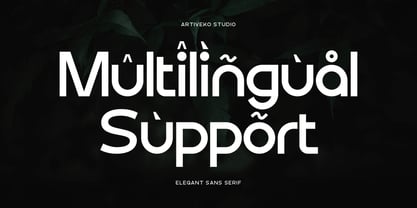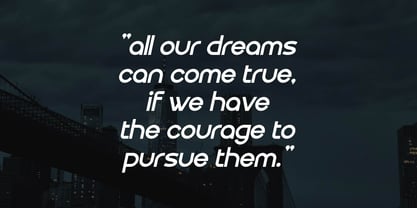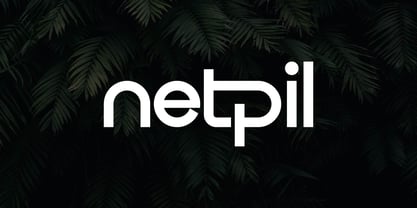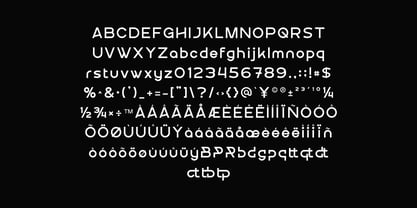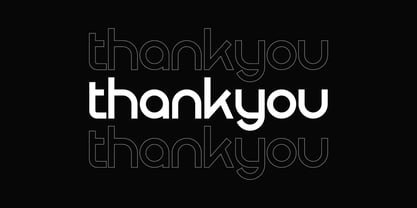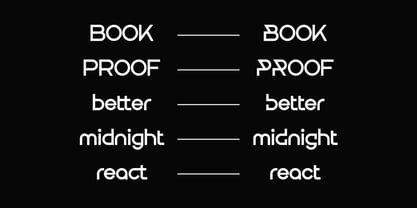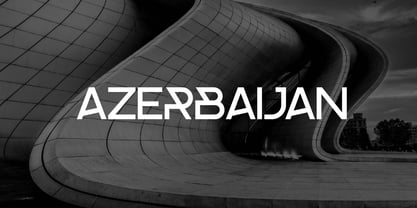
Netpil
by Artiveko
The Netpil Font Family was designed by Iwan Alwan and published by Artiveko. Netpil contains 2 styles and family package options.
Netpil is a stylish and contemporary sans serif font designed for bold logo design and creative branding. With its clean lines, unique character shapes, and balanced proportions, Netpil brings a fresh modern vibe that’s perfect for building memorable visual identities. Whether used for tech startups, fashion labels, lifestyle brands, or digital platforms, Netpil ensures your designs look sharp, professional, and distinctive. Its creative yet minimalist construction makes it versatile across different media — from packaging and posters to website headers and social media content. Netpil is built to make a strong impression while maintaining excellent readability and timeless appeal. The font includes uppercase and lowercase letters, numerals, punctuation, multilingual support, and stylistic alternates for flexible and polished typography. Stand out with Netpil — a creative sans serif logo font that blends modern simplicity with innovative design flair.